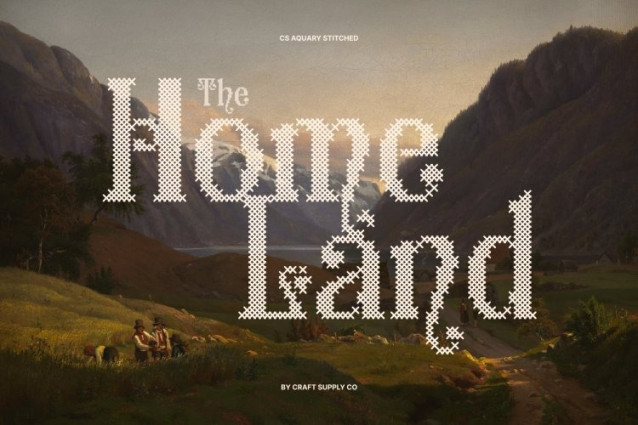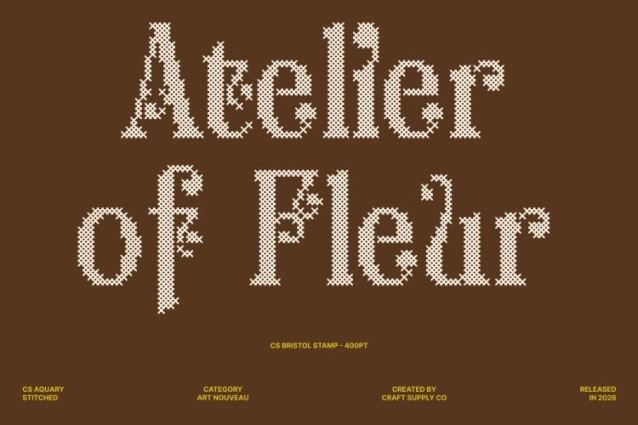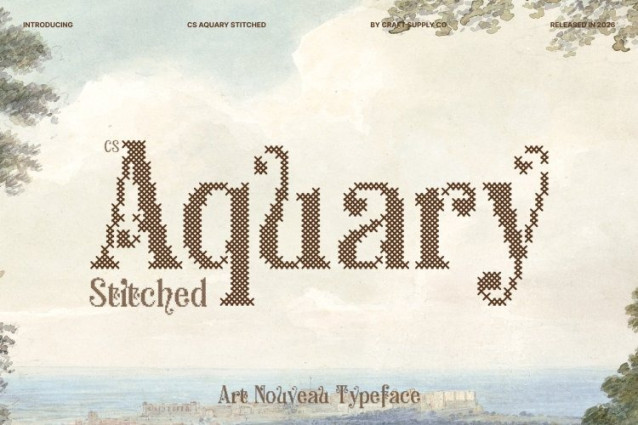
CS Aquary Stitched Font
CS Aquary Stitched Font This is a fantasy display serif font designed to bring enchantment and elegance to your creative projects. Its elaborate and whimsical letterforms feature intricate curves and imaginative detailing, inspired by magical worlds and fairy-tale aesthetics.
Intricate Curves with Embossed Stitch Texture
The flowing shapes and fantastical motifs of this font are complemented by a distinctive cross-shaped stitch pattern, creating an embossed and structured texture across each character. This stitched detailing gives the font a tactile, fabric-like quality while adding a classic, nostalgic, relaxed, and warm impression balancing magical elegance with a charming handcrafted feel.
Whimsical, Decorative, and Visually Captivating
With its ornate structure and imaginative letterforms, this font captures a sense of wonder and storytelling. The combination of fantasy-inspired curves and stitched texture creates a unique typographic personality that feels both enchanting and expressive, making every design more visually engaging.
Perfect for Magical and Creative Projects
This font is ideal for fantasy book covers, film posters, game titles, themed event designs, creative branding, invitations, and craft-inspired projects. Whether used for imaginative storytelling or artistic visual identity, this font delivers a magical presence that ensures your designs stand out with elegance, charm, and creativity.